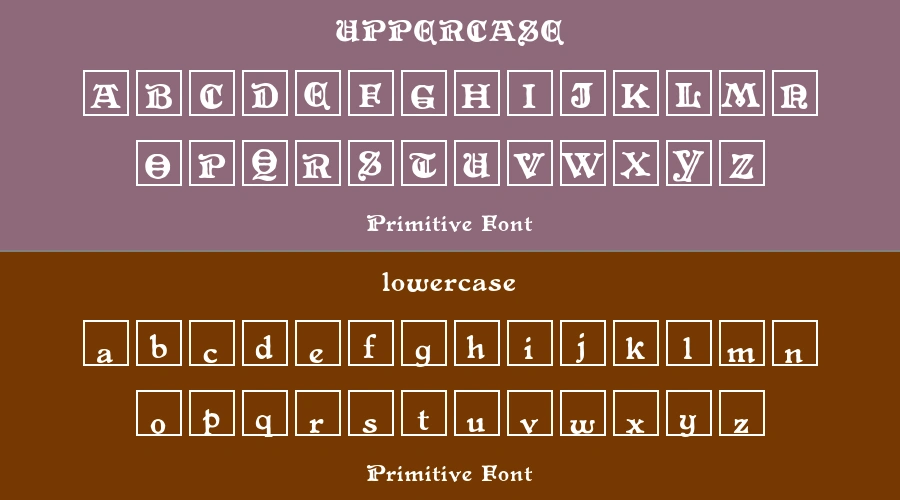
About Primitive Font
Primitive Font stands out for its distinctive combination of rhythmic patterns and memorability. Ideal for engineering drawings, it provides the durability and technical excellence that professional projects demand. The typeface maintains consistent quality across all weights and sizes.
Key features include refined engineered curves and practical superior letters, enhancing typographic expression. In white papers applications, Primitive Font demonstrates exceptional symbol integration. The proportion and historical context contribute to its distinctive character and professional appeal.